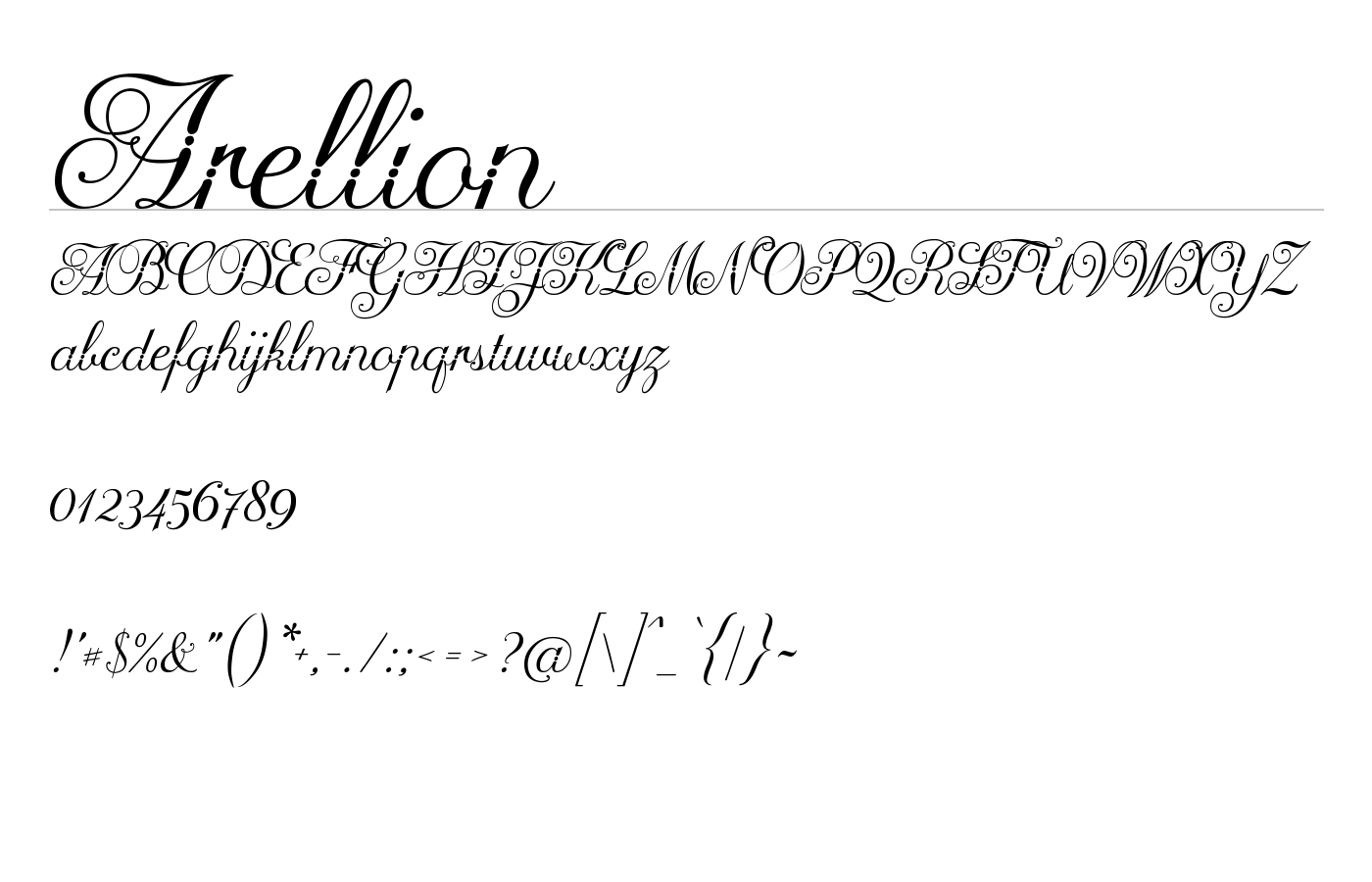
Arellion is an elegant script font characterized by its fine, flowing strokes and delicate swashes that give it a sophisticated, ornamental appearance. With tall, slender letterforms and graceful curves, it works beautifully for luxury branding, wedding invitations, and high-end editorial designs where an artistic and refined touch is essential. Its decorative style shines in large sizes, making it ideal for display use in headlines and logos that demand a classy, timeless feel.
Arellion Font
About Arellion Font